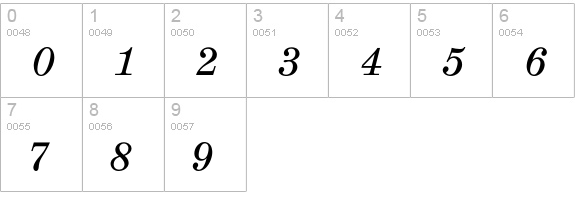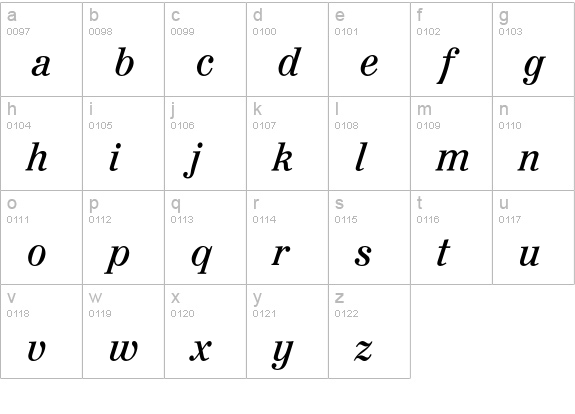
Augustea Italic is a distinctive, italic variant in the Augustea typeface family \xE2\x80\x94 well suited to design and typography projects.
Augustea Italic font is a timeless and elegant typeface that exudes sophistication and grace. With its delicate and flowing letterforms, this font is perfect for adding a touch of luxury to any design project. Whether you are creating wedding invitations, branding materials, or editorial layouts, Augustea Italic font will elevate your work to new heights. What's even better is that Augustea Italic font is available for free download at FontsMarket.com. Don't miss out on this opportunity to enhance your designs with this exquisite typeface. Download Augustea Italic font today and let your creativity shine!